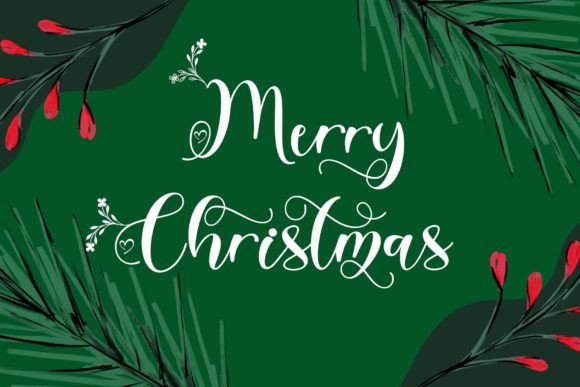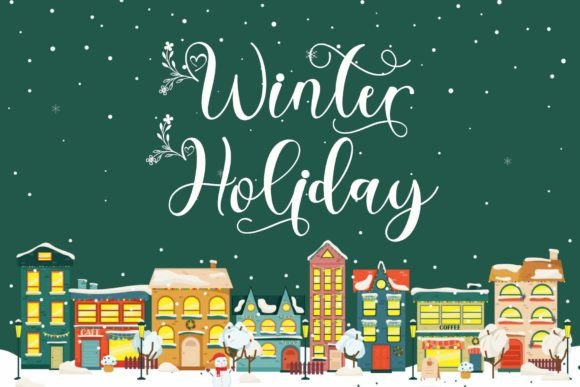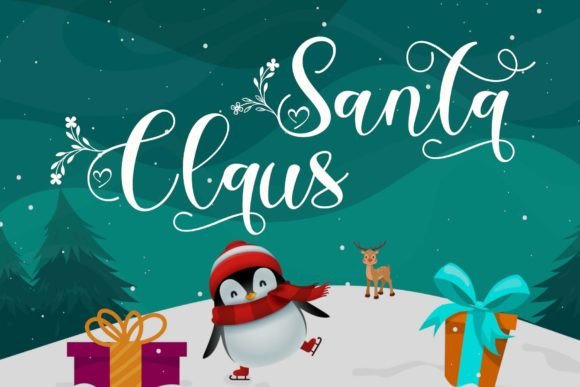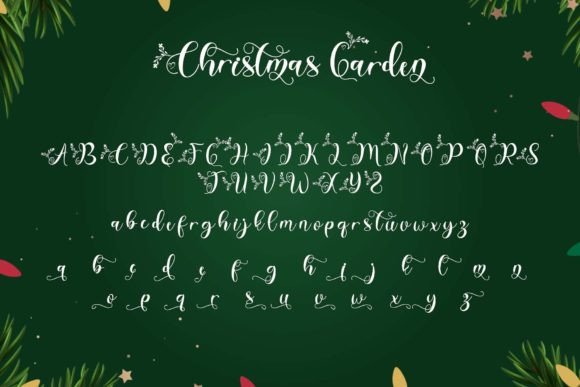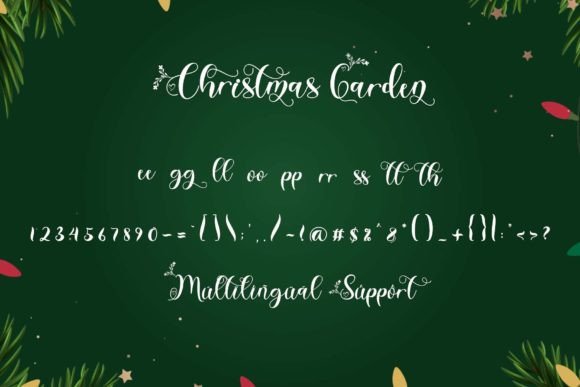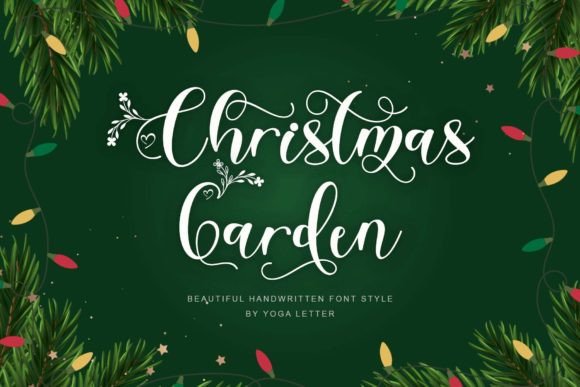
Introducing Christmas Garden Font: A Magical Handwritten Delight
Are you looking for a font that captures the essence of the holiday season? Look no further than the Christmas Garden Font, a beautiful and unique handwritten font that’s perfect for Christmas, weddings, winter, Valentine’s, engagements, invitations, and more. In this article, we’ll dive into the features and benefits of this stunning font, and explore how it can elevate your designs and crafts.
A Festive and Versatile Font
Christmas Garden Font is a carefully crafted handwritten font that’s designed to bring a touch of magic to your projects. With its elegant and flowing script, this font is ideal for creating festive and memorable designs. Whether you’re a designer, crafter, or DIY enthusiast, this font is sure to inspire your creativity.
Key Features of Christmas Garden Font
• Uppercase and Lowercase Letters: The font includes both uppercase and lowercase letters, allowing you to create a wide range of designs and projects.
• Numerals and Punctuation: The font also includes numerals and punctuation marks, making it easy to create complete and professional-looking designs.
• Alternates: With alternate characters, you can add variety and uniqueness to your designs, creating a more personalized and distinctive look.
• Multilingual Support: The font supports multiple languages, making it a great choice for designers and crafters who work with international clients or create projects for a global audience.
• Ligatures: The font includes ligatures, which allow you to create beautiful and flowing connections between letters, adding a touch of elegance to your designs.
Perfect for Holiday and Special Occasion Designs
Christmas Garden Font is specifically designed for holiday and special occasion designs, making it a great choice for:
• Christmas cards, invitations, and decorations
• Wedding invitations, stationery, and decor
• Valentine’s Day cards and gifts
• Engagement announcements and party decorations
• Winter-themed designs, such as snowflakes, snowmen, and more
Why Choose Christmas Garden Font?
So why choose Christmas Garden Font for your designs and crafts? Here are just a few reasons:
• Unique and Eye-Catching: The font’s unique and elegant script is sure to grab attention and make your designs stand out.
• Versatile: The font’s versatility makes it suitable for a wide range of projects and designs, from formal to informal.
• High-Quality: The font is of high quality, with crisp and clear lettering that’s perfect for printing and digital use.
Tips for Using Christmas Garden Font
Here are a few tips for using Christmas Garden Font in your designs and crafts:
• Experiment with Colors: Try pairing the font with different colors and textures to create a unique and eye-catching design.
• Play with Size and Layout: Experiment with different font sizes and layouts to create visual interest and hierarchy in your design.
• Add Decorations: Consider adding decorations, such as holly, snowflakes, or hearts, to enhance the festive theme of your design.
Christmas Garden Font is a beautiful and unique handwritten font that’s perfect for holiday and special occasion designs. With its elegant script, versatile features, and high-quality lettering, this font is sure to inspire your creativity and elevate your designs and crafts. Whether you’re a designer, crafter, or DIY enthusiast, Christmas Garden Font is a great addition to your font collection.